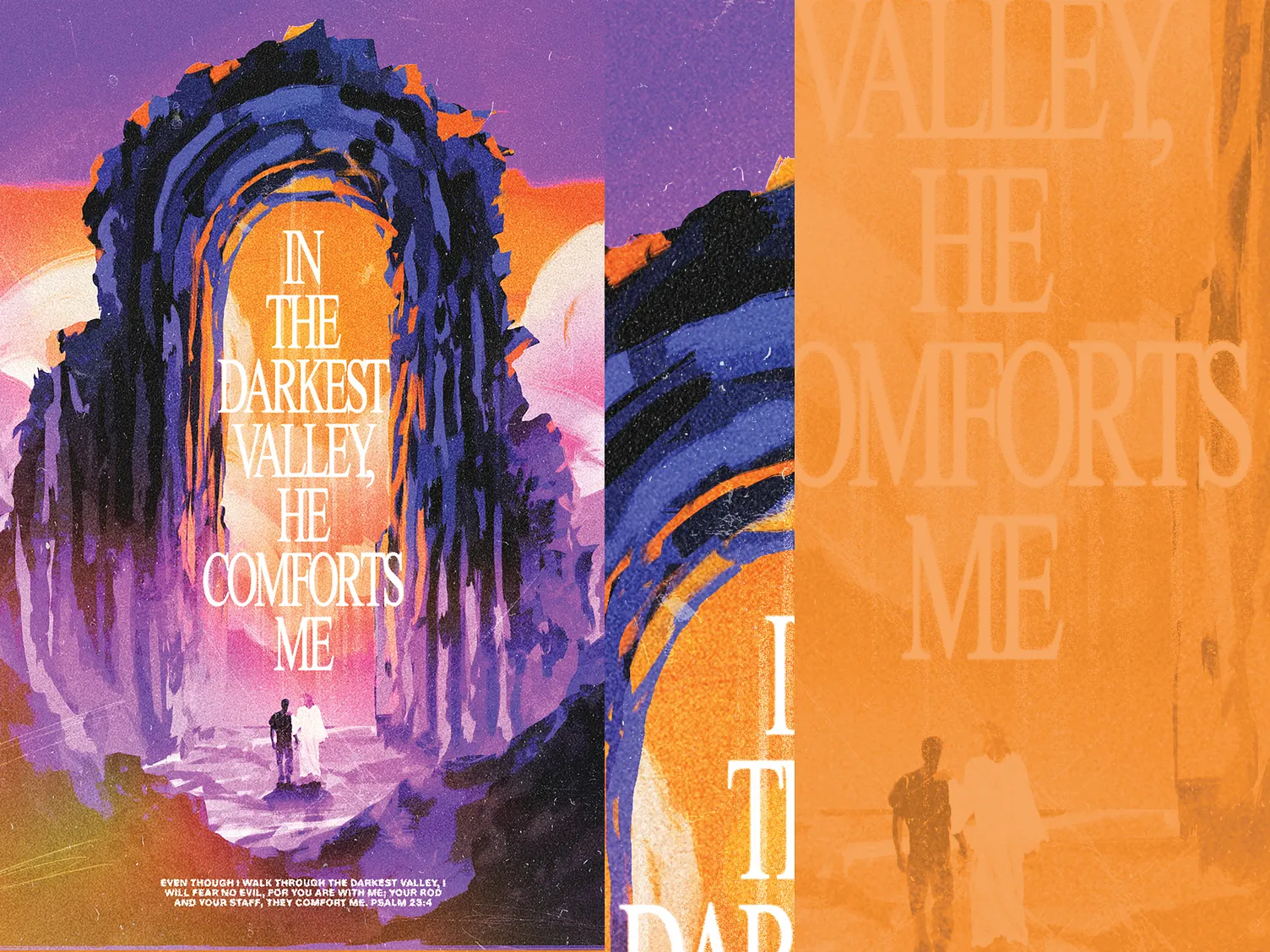
Serif Font from a Dribbble Design
I found this design on Dribbble by Brad Hansen and absolutely love the Serif Font being used. It seems to be in a similar vein to Perfectly Nineties or Editorial New but not quite either of those. I would appreciate any help getting this exact font identified!